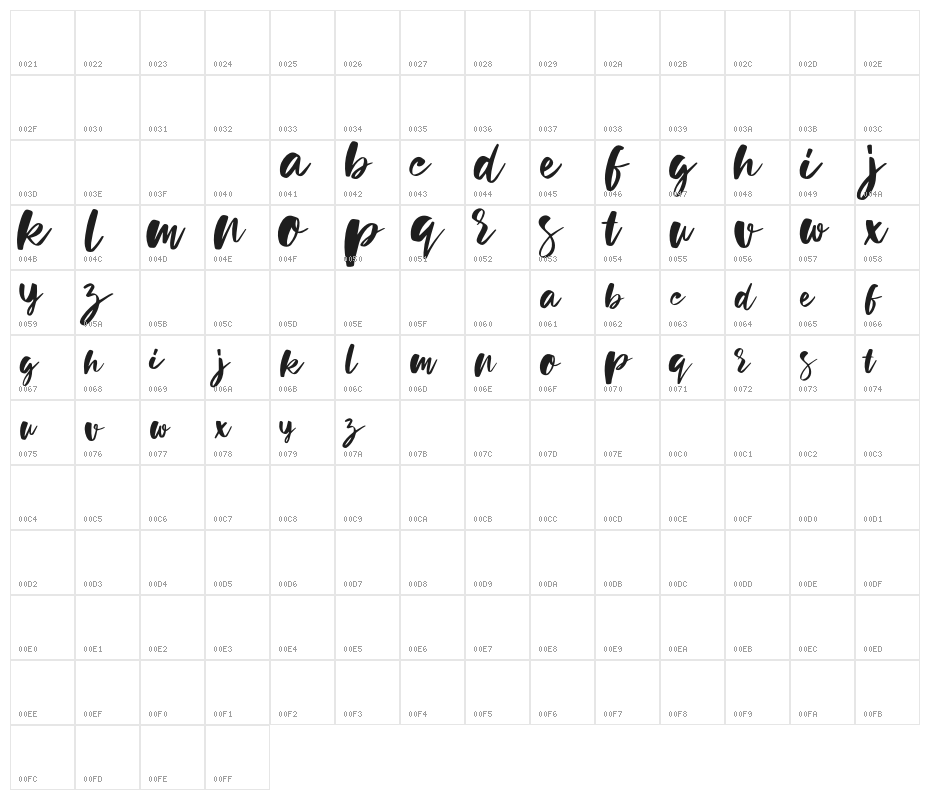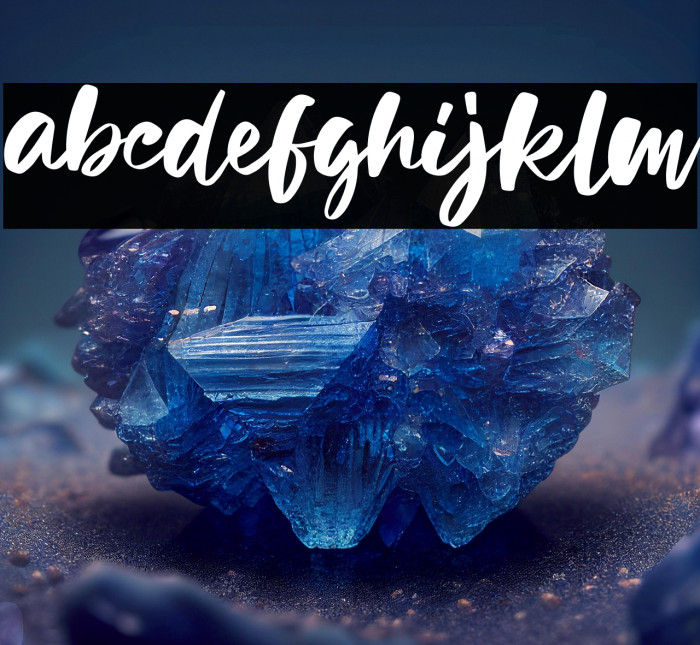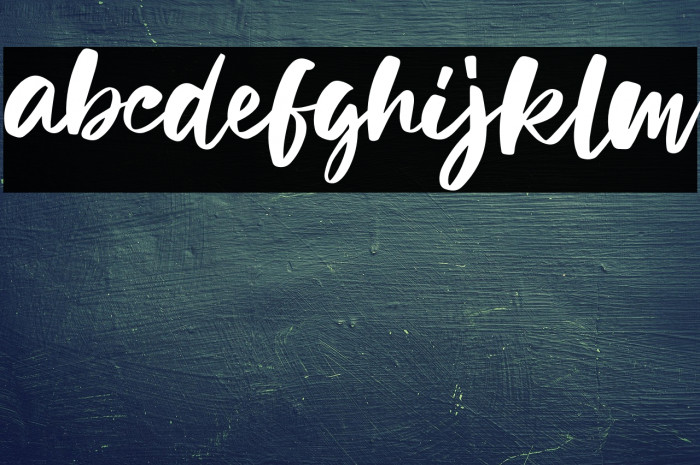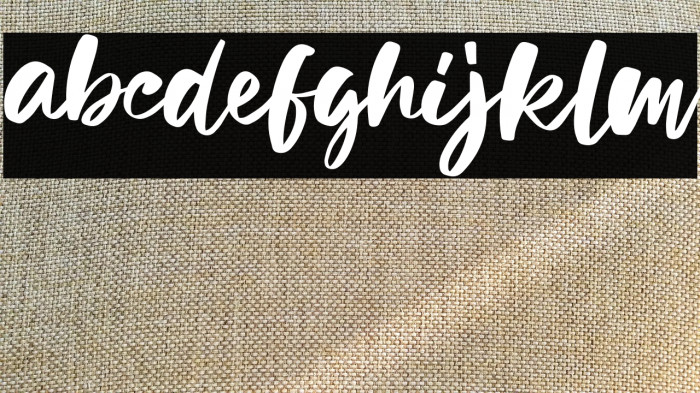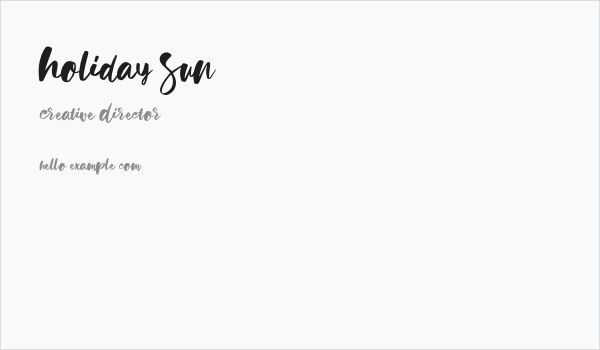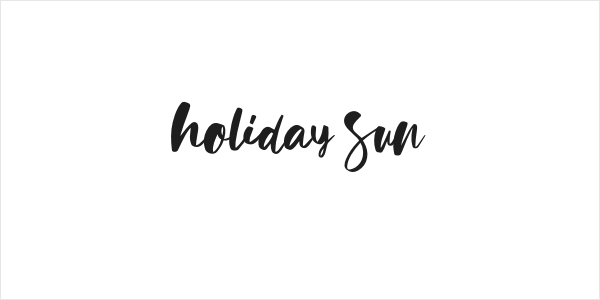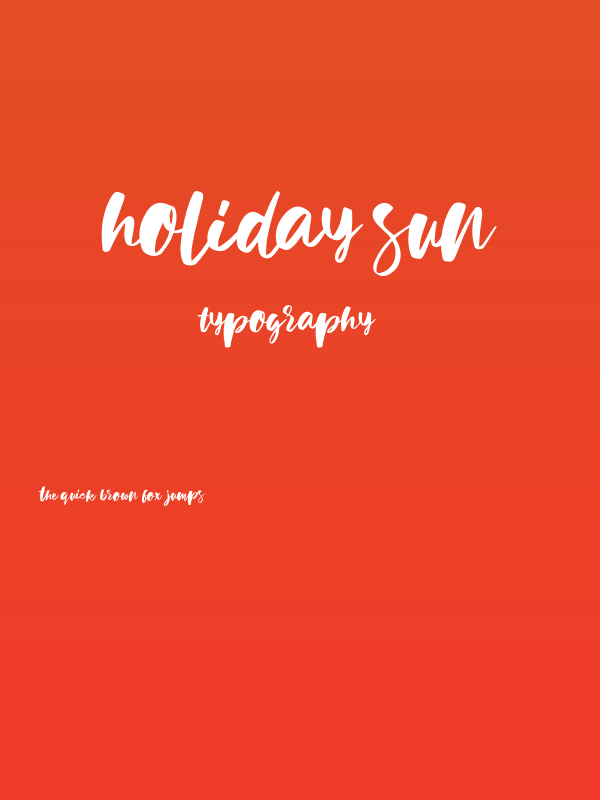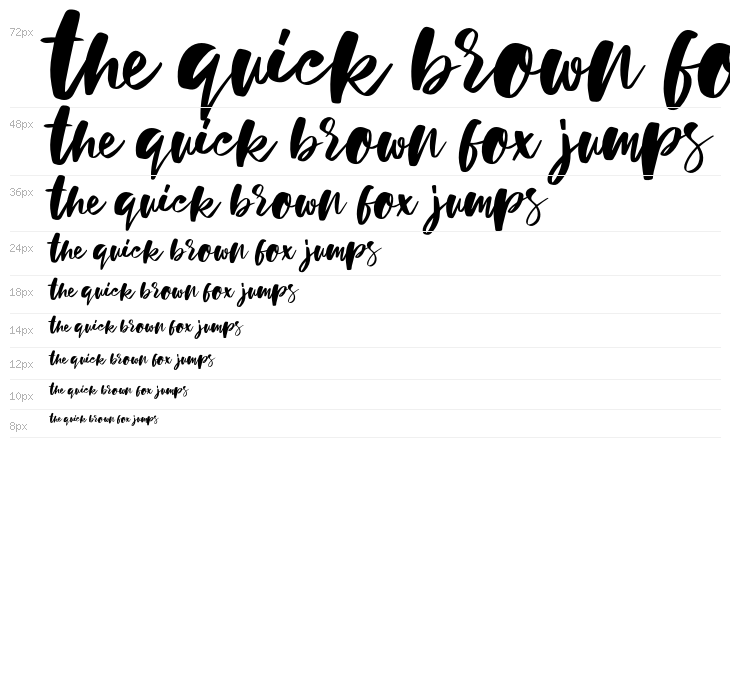
Holiday Sun Font
Holiday Sun Description
This font features a bold, flowing script style with a handwritten aesthetic. The characters are connected, creating a seamless and elegant appearance. The strokes are thick and expressive, giving the font a lively and dynamic feel. The letters have a slight slant, enhancing the cursive nature and adding a sense of movement. The overall design is playful yet sophisticated, making it suitable for creative and artistic projects. The font maintains consistent thickness throughout, providing a uniform look that is both modern and stylish.
| Proposed Projects | Ideal for wedding invitations, greeting cards, branding, and social media graphics. |